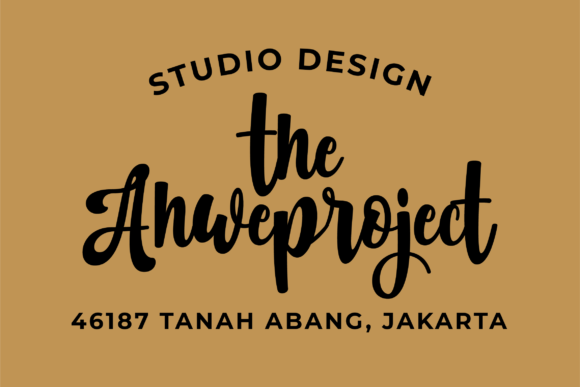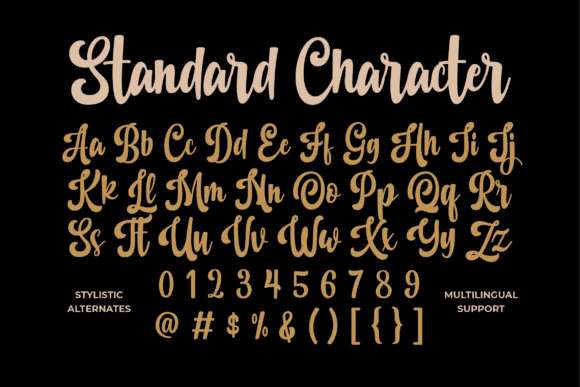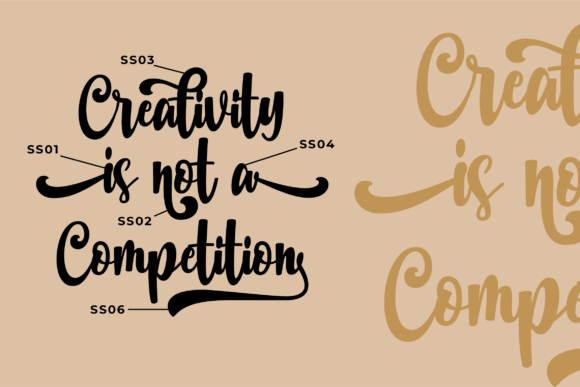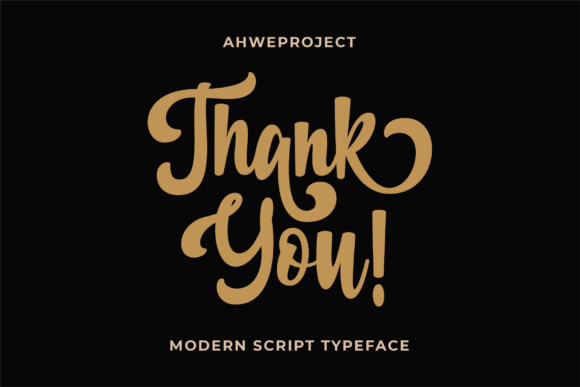
Introduction to Honeystar Font
Honeystar is a gorgeous and bold handwritten font, crafted to give your headlines and logotype projects a retro touch.
This font is PUA encoded which means you can access all of the glyphs and swashes with ease .
Key Features of Honeystar Font
Why Choose Honeystar Font?